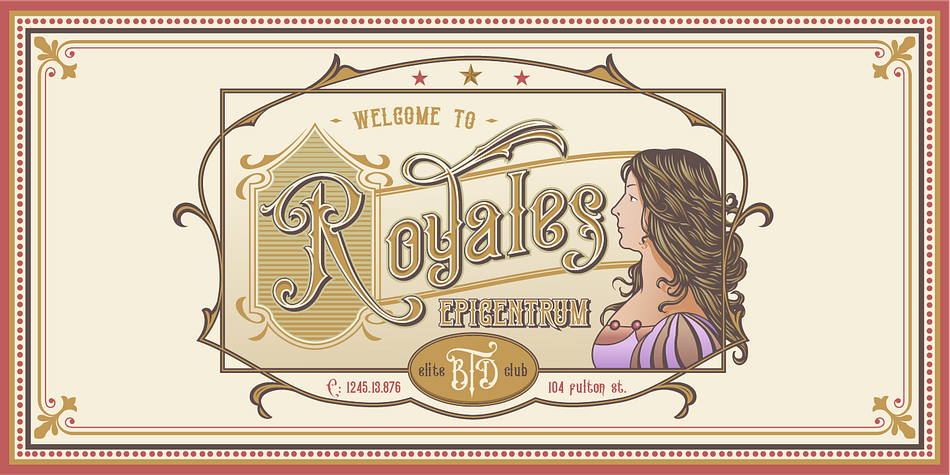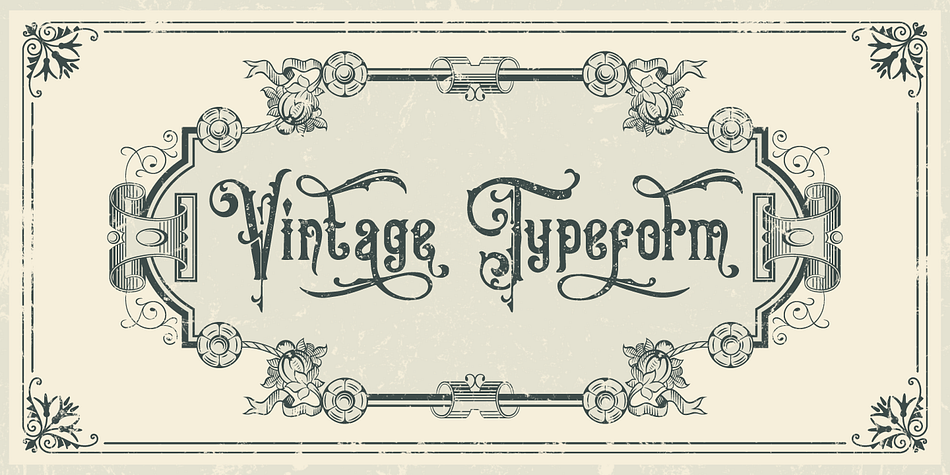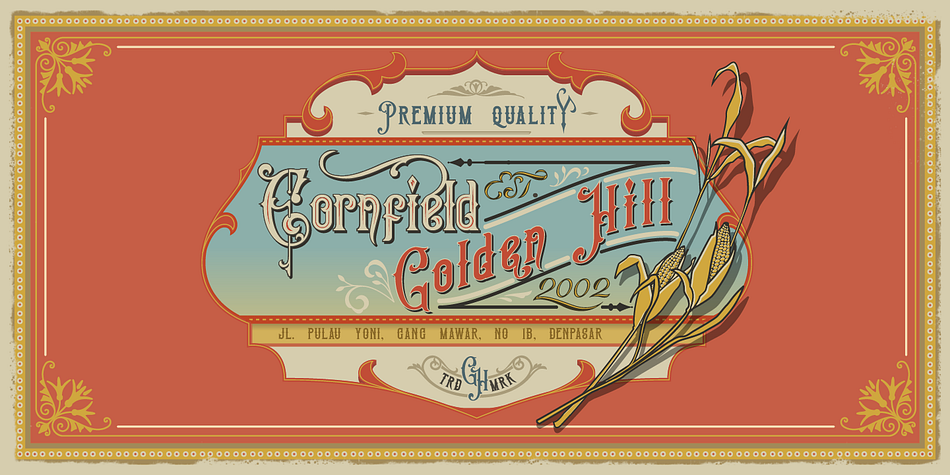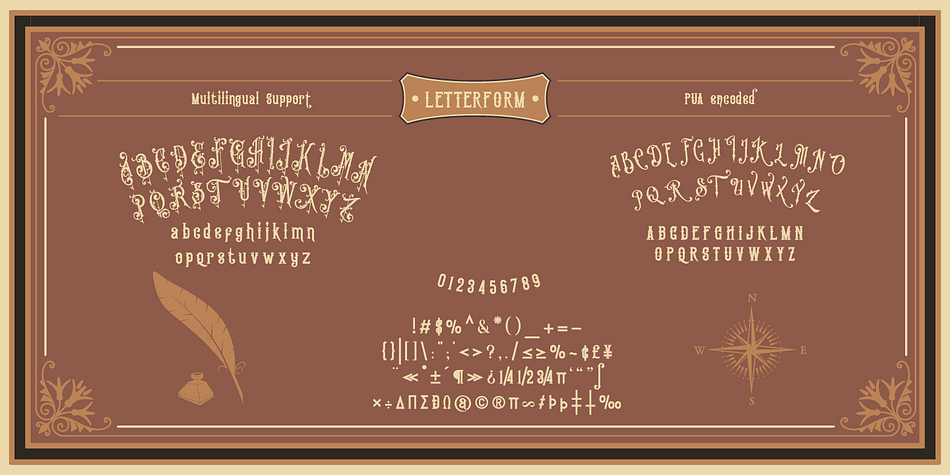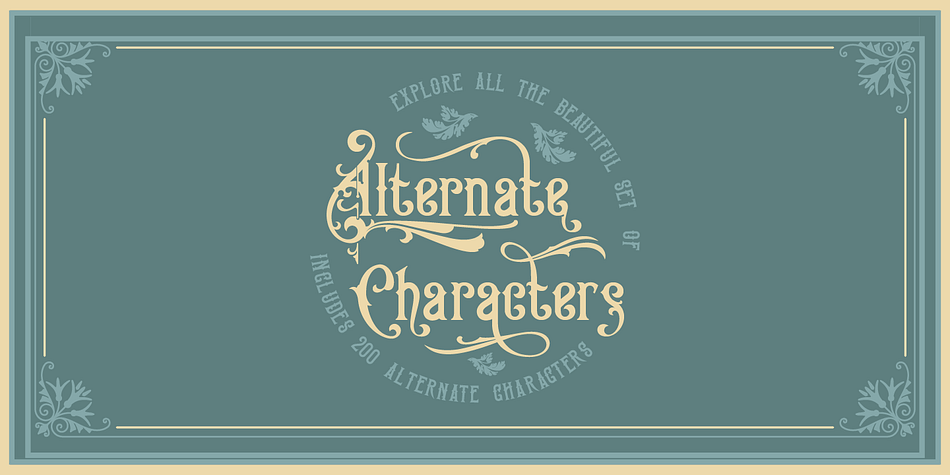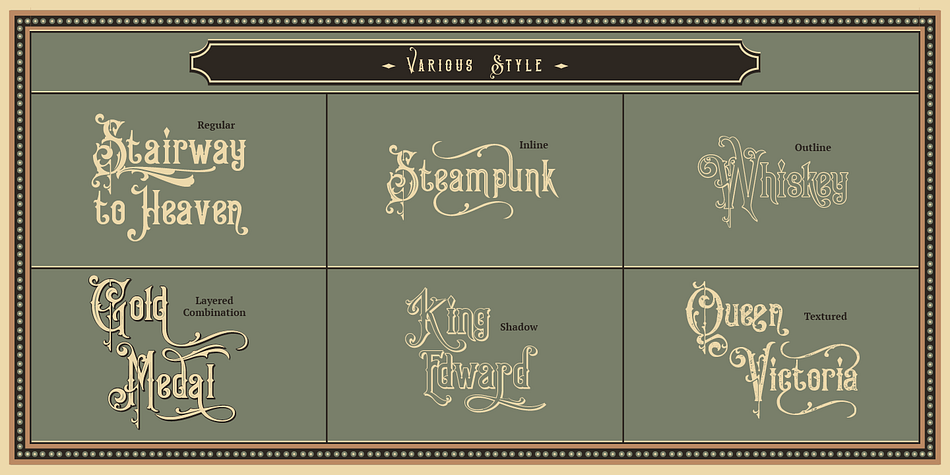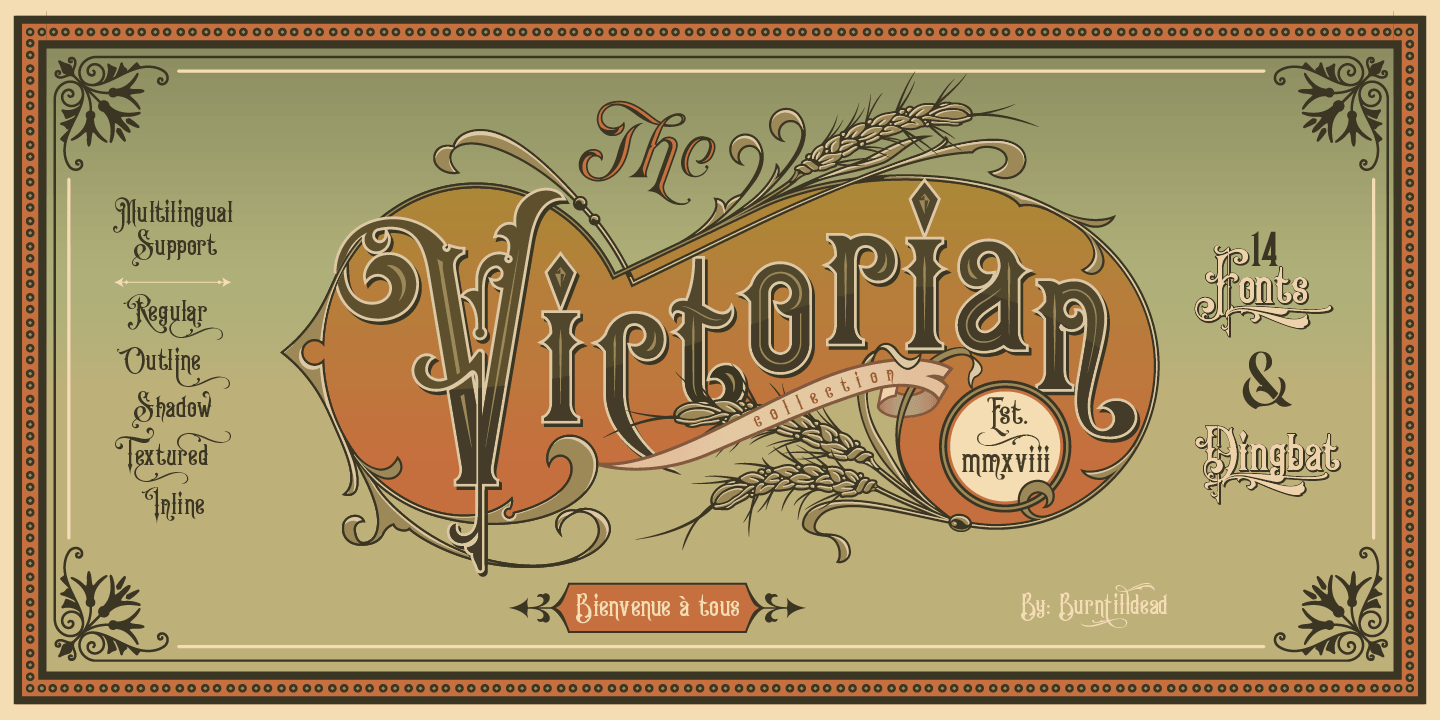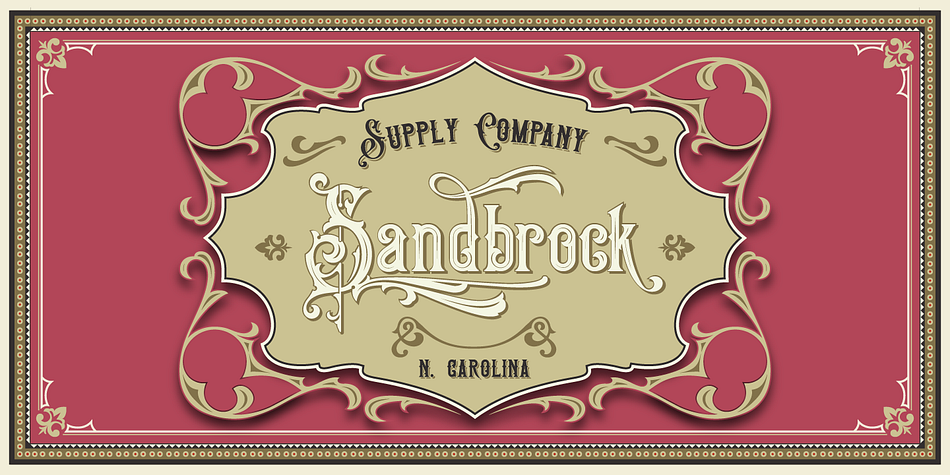
Designed by Eric Kurniawan, Victorian Fonts Family is a dingbat and historical font family. This typeface has fourteen styles and was published by Burntilldead.
Have you ever imagined to make a layered Victorian logo as fast as you blink your eyes? Or to add a classical Victorian vibe to your documents or website? Abracadabra! Introducing to you our new Opentype font: the King Edward and Queen Victoria! Two families in one solid package.
This family is very Victorian, ornamental, decorative and classical. A solid combination that can bring your design, logo, document, website, etc. back to the 1800s. A playful multilingual family with 200 alternate characters.